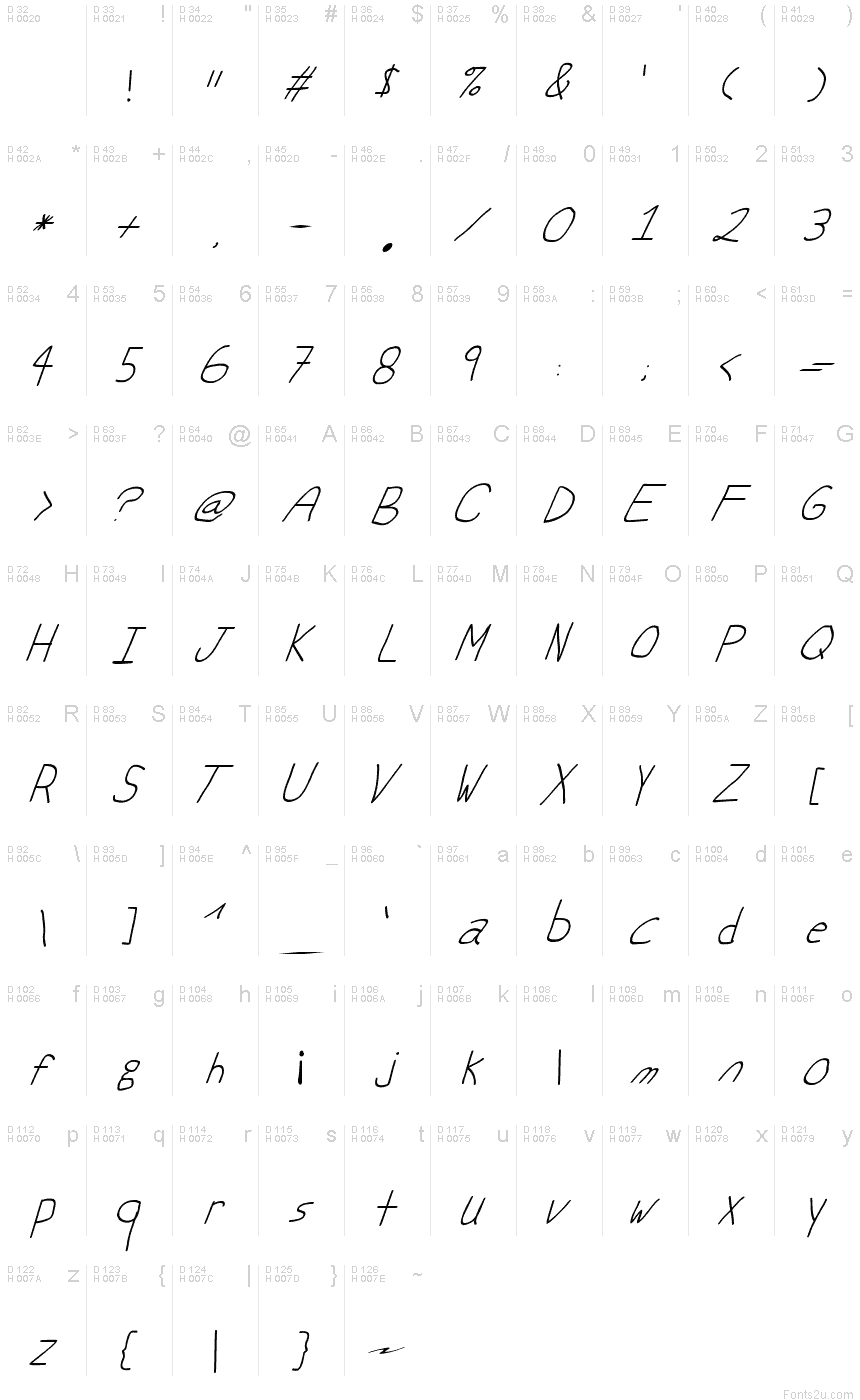
Swabby Italic by Brian Sullivan is a free handwritten script with loose, quick strokes and an easy rightward lean. Its changing stroke widths, open curves, and uneven proportions resemble writing made with a fine marker rather than carefully drawn calligraphy.
It can give a cafe identity or food package the look of a casual handwritten note. That same relaxed line suits personal invitations and lifestyle editorial graphics. Cafe branding is its strongest use, since the irregular pen strokes turn a simple name into an informal, hand-drawn wordmark or shop sign.